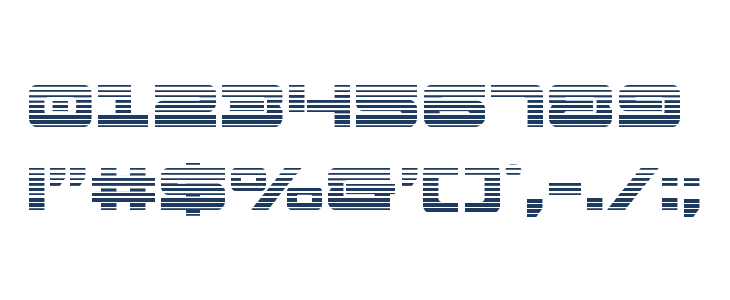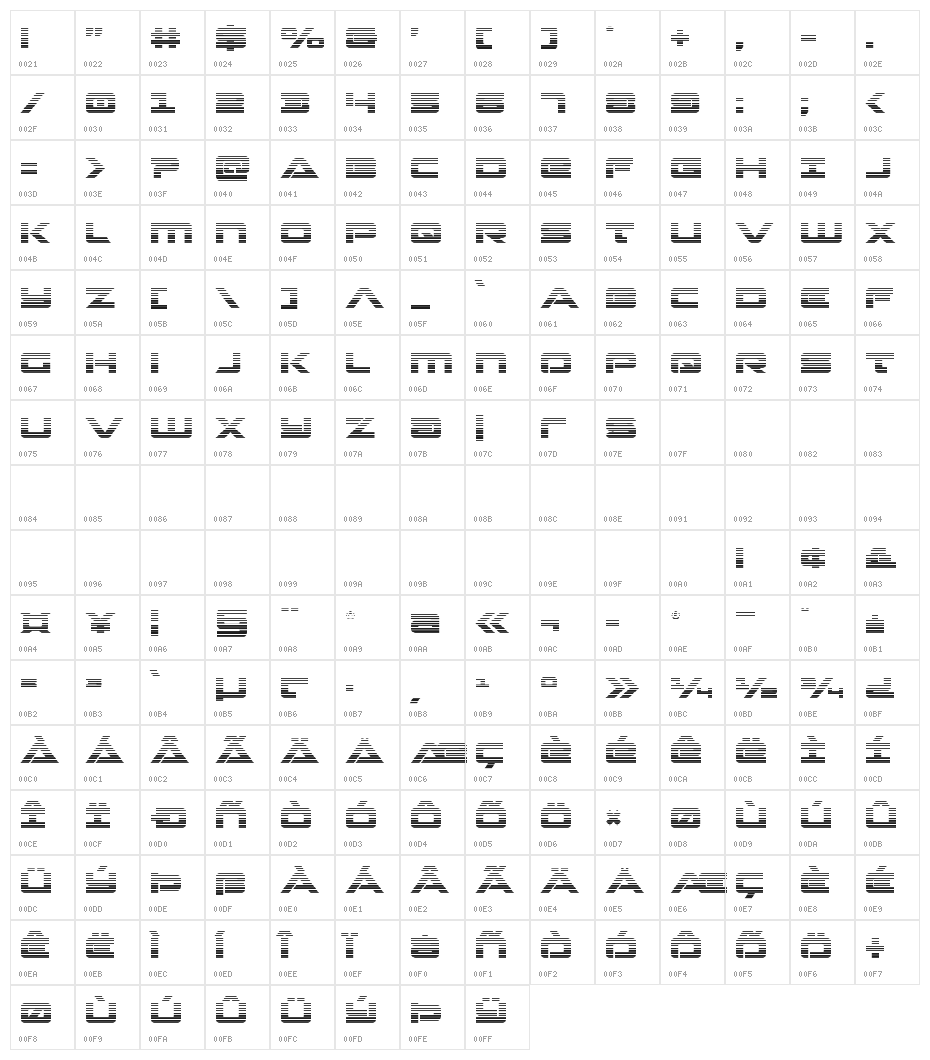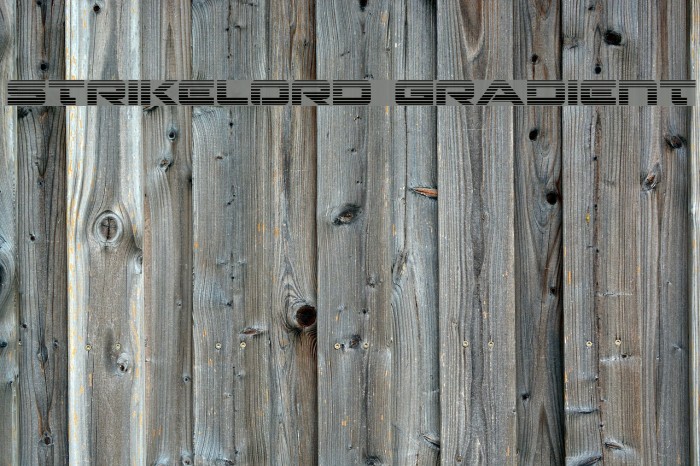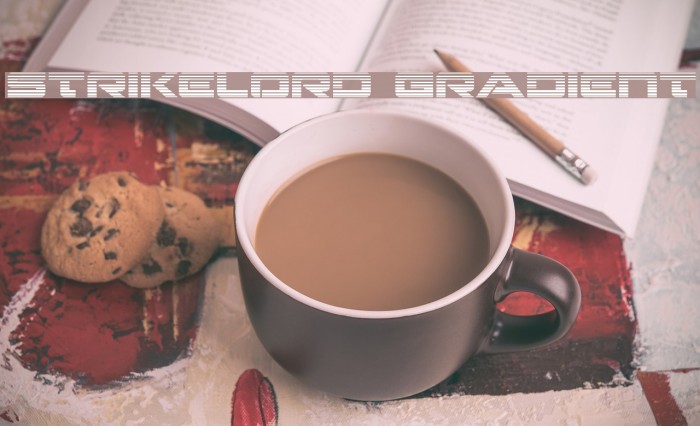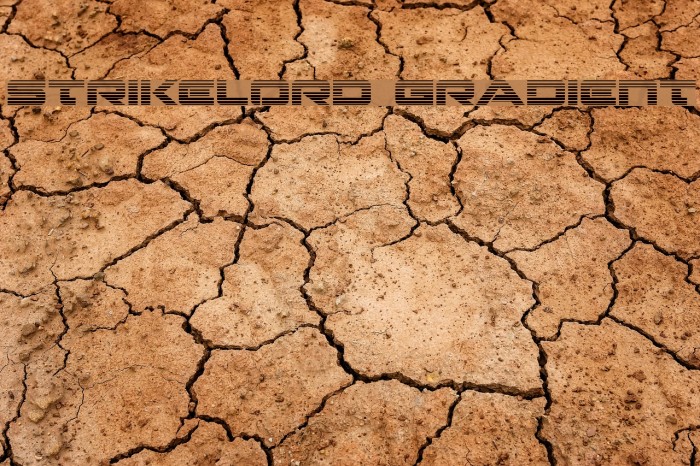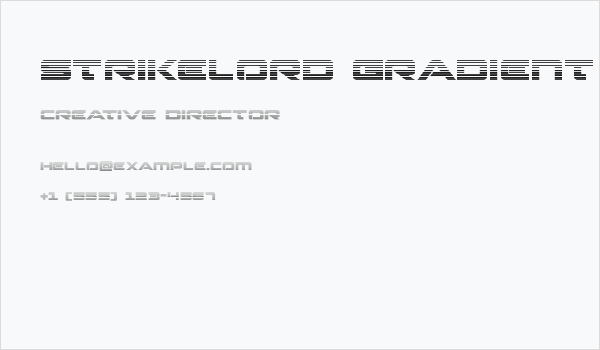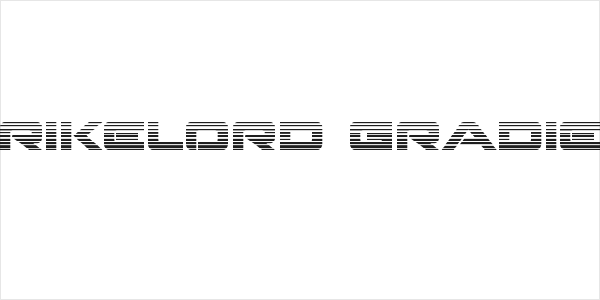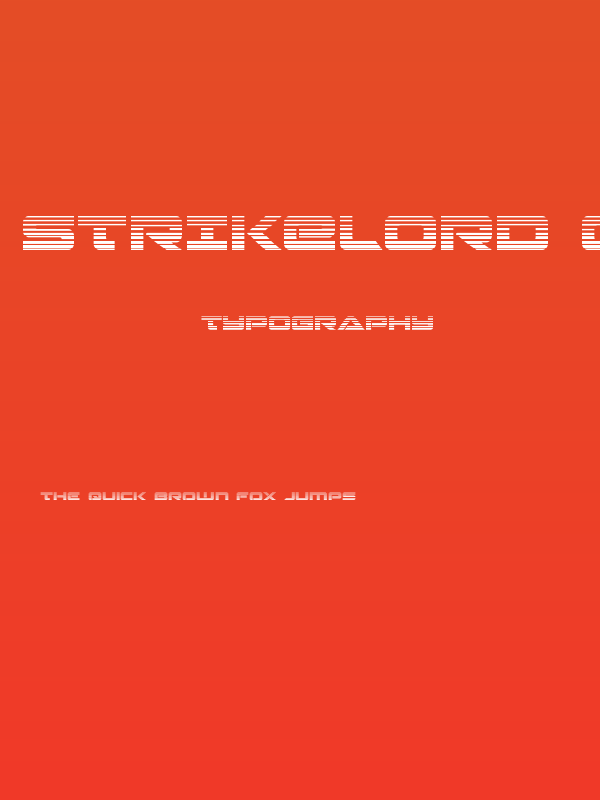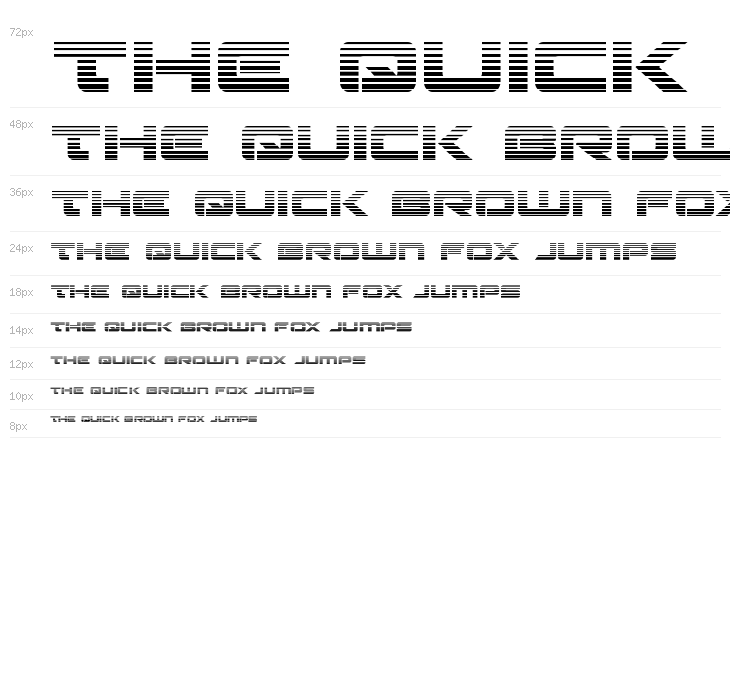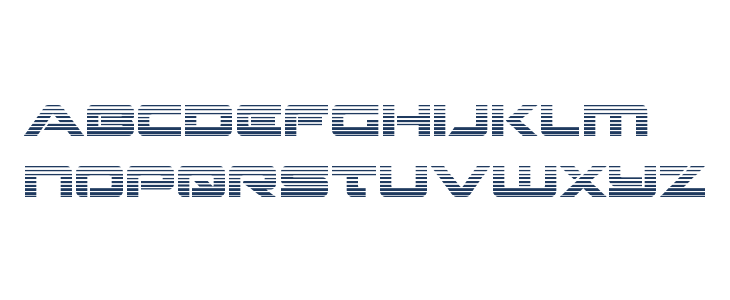
Strikelord Gradient Font
Strikelord Gradient Description
This font features a bold and futuristic design characterized by its horizontal striped pattern that creates a gradient effect across each character. The uppercase and lowercase letters maintain a consistent width, giving the font a uniform appearance. The numerals and special characters are designed with the same striped effect, ensuring a cohesive look throughout. The font's unique style makes it stand out, with each character appearing as if it's composed of multiple parallel lines, adding a sense of movement and dynamism.
| Proposed Projects | Ideal for sci-fi themed projects, video game titles, posters, and branding that requires a modern and edgy look. |